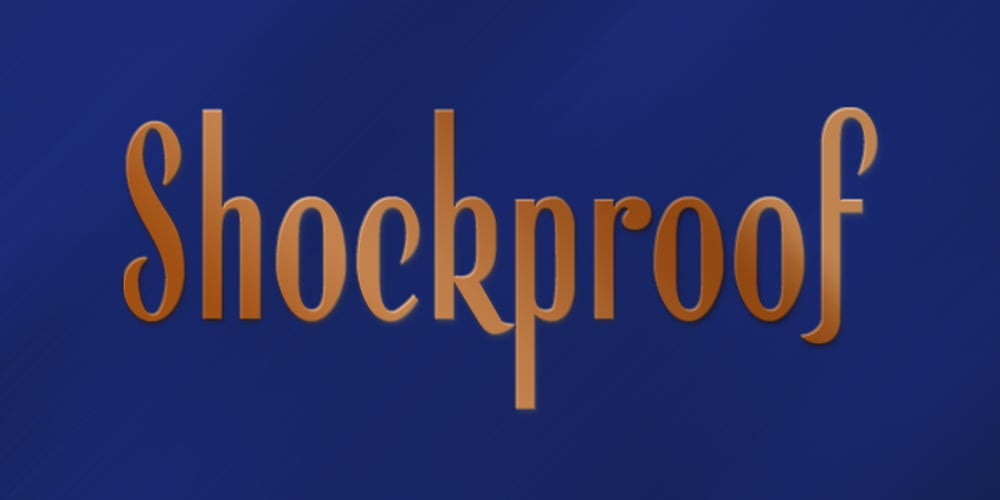
Shockproof
Shockproof font
Shockproof Font Family was designed by Alec Julien and published by Haiku Monkey. Shockproof contains 1 styles and family package options. Shockproof takes its inspiration from 1940s hand lettering. It’s a display font that mixes elegance with a touch of informality. Great for use in identity, signage, posters, and anywhere that tall, cool typographic drink would be refreshing.